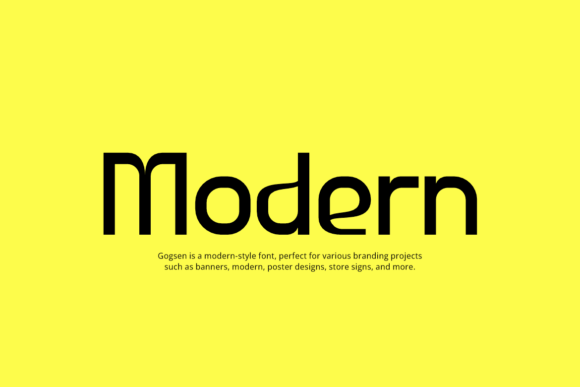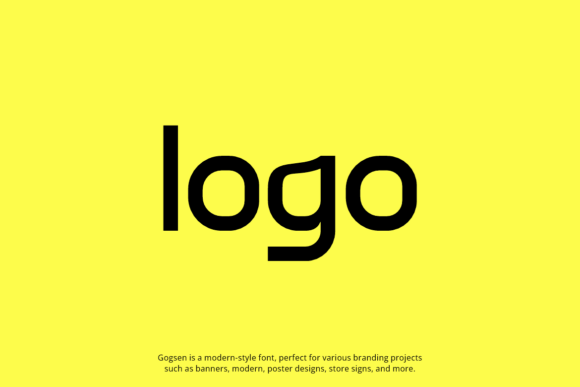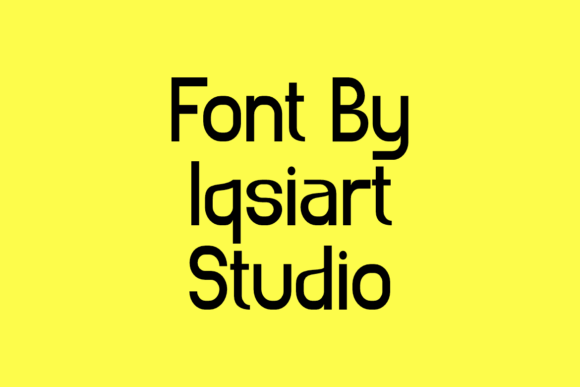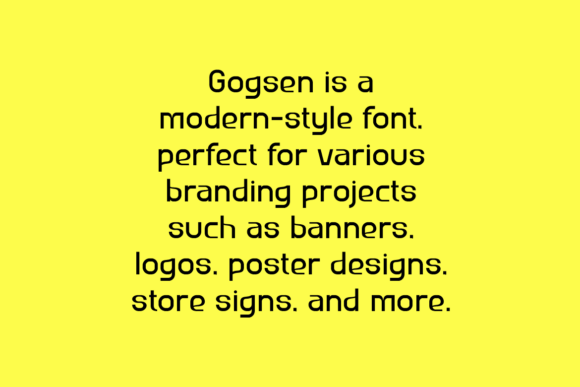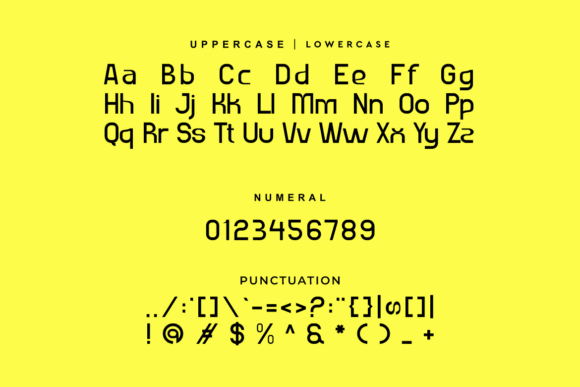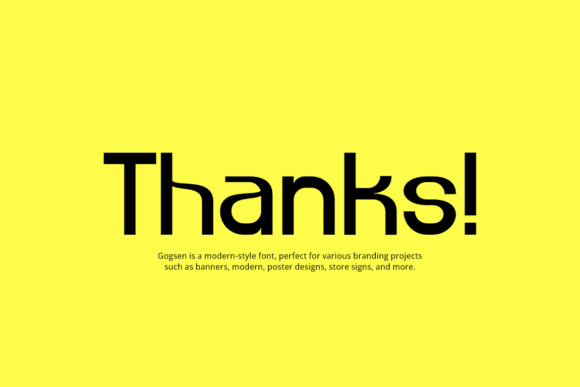
The Designer’s Delight: Unpacking the Gogsen Font
I’ll never forget the struggle I faced while working on a branding project for a trendy fashion boutique. The client wanted a font that was modern, yet approachable; clean, yet had a touch of warmth. After hours of scouring through font libraries, I stumbled upon the Gogsen Font. It was love at first sight! ✨ The perfectly circular counters and smooth junctions immediately caught my attention. In this article, I’ll share my experience with the Gogsen Font, its features, and how to make the most of it in your designs.
- ✅ Versatility: Gogsen Font is a modern logo display font that works wonders for a wide range of branding projects, from retail to lifestyle brands.
- ✅ Legibility: Its balanced structure makes it highly legible, whether it’s used on a massive store sign or a small product label.
- ✅ Professional Edge: The font’s clean and approachable energy makes it perfect for creating a professional yet inviting look.
- ✅ Seamless Blend: Gogsen Font effortlessly combines warmth and modernism, making it ideal for building instant memorability.
While Gogsen Font is an excellent choice for many design projects, there are a few things to keep in mind: ⚠️
- 🤔 Limited Serif Options: As a display font, Gogsen Font might not be the best choice for body text or long-form content.
- 🤔 Glyph Limitations: While Gogsen Font has a range of OpenType features, it might not have the extensive glyph library of some other fonts.
The Gogsen Font was designed with the goal of creating a clean, approachable, and modern typeface that would work well for a wide range of branding projects. Its designer drew inspiration from the simplicity and elegance of geometric shapes, combined with a touch of warmth and personality. The result is a font that’s both professional and inviting.
| Font Name | Gogsen Font |
| Author | IqsiartStudio |
| What type of projects is Gogsen Font best suited for? | Gogsen Font is perfect for retail, lifestyle, and fashion brands, as well as audio gear, social media campaigns, and contemporary poster designs. |
| Is Gogsen Font suitable for body text? | While Gogsen Font is highly legible, it’s primarily designed as a display font and might not be the best choice for long-form content. |
| Does Gogsen Font have OpenType features? | Yes, Gogsen Font features a range of OpenType features, including Stylistic Alternates, Glyphs, and Ligatures. |